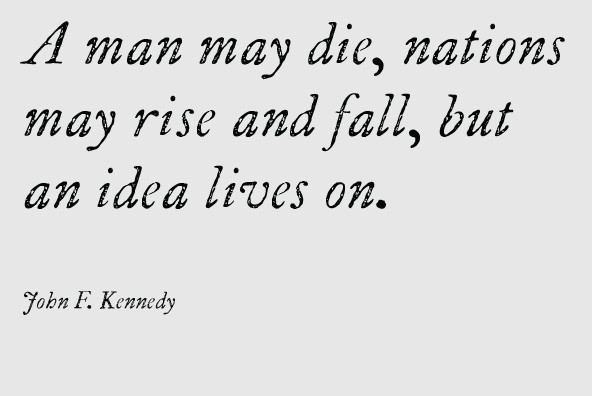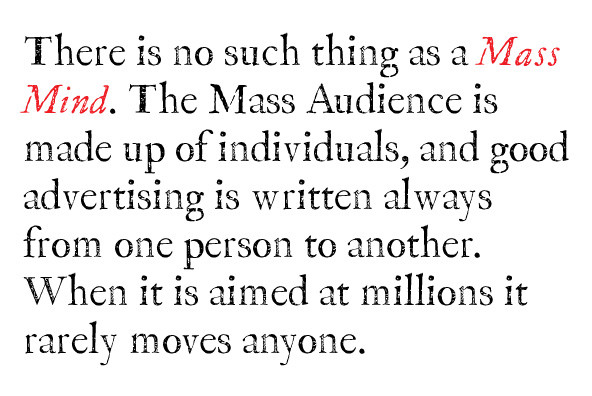
P22 Franklin's Caslon Set
January 17, 2006, marks the 300th birthday of our most remarkable Founding FatherÑBenjamin Franklin. He was an extraordinary man of his time, and his astonishing achievements as writer, printer, scientist, inventor, civic leader, and diplomat, are still relevant to our times. Among his many inventions are bifocals, the lightning rod, and the Pennsylvanian fire-place; his printing skills helped to establish America's paper currency system; and he founded America's first lending library, first public hospital, and one of the first fire companies.
Benjamin Franklin's place in American printing history is well established. Franklin corresponded with then contemporary type designers: Baskerville, Caslon, Fournier, Didot, & Bodoni who are legendary and still revered today. While he championed Baskerville and his types, Franklin used Caslon fonts on many of his printed works. It is from these works that this digital font set was derived.
This font set includes faithfully reproduced letterforms digitized directly from images of impressions made by Benjamin Franklin and his printing office circa 1750. The printing conditions of the time involved handmade paper with textured surfaces and handmade inks which were hand-applied for each impression. The handcrafted printing of each page was not slick by today's standards, but the beautiful page composition and the refined Roman letterforms yielded handsome work that is difficult to reproduce today. By digitizing the printed type in its real-life state, an authentic look of Franklin's actual work is achieved and, ultimately, has a timeless appeal.
"P22 Franklin Caslon Ornaments" is a font of typographic ornaments as found in many of Benjamin Franklin's printed pieces including title pages, bookplates, lottery tickets and of course Poor Richard's Almanack. Additional ornaments from the Caslon foundry of the mid 1700s are also included. The ornaments have the same irregular edges as the lettering fonts in this set.